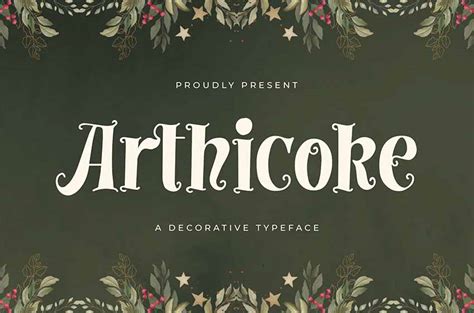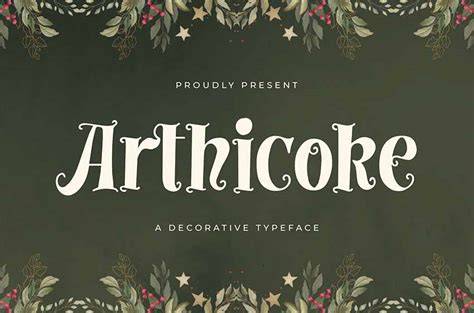
Enhance Your Design with Captivating Decorative Fonts!
Are you looking for a way to enhance your design with captivating decorative fonts? You’ve come to the right place!
Did you know that decorative fonts can bring your design to life? Or that they can add interest and personality to your design?
Statistics show that decorative fonts can help boost the overall success of your design and are a great way to grab attention! So why not give it a try?
In this article, you’ll find tips and advice on how to choose and use decorative fonts to enhance your design. You’ll also discover some of the most popular decorative fonts that you can use to give your design the edge.
Decorative fonts are often used to give a unique and eye-catching look to a design. From a marketing perspective, decorative fonts can help draw the eye of potential customers and give them a memorable experience. They can also help create a sense of emotion and excitement when used in the right context. Decorative fonts can also add visual interest to a design and help break up blocks of text and make it easier to read.
Decorative fonts come in a variety of styles and can be used for a variety of purposes. Some popular types of decorative fonts include script fonts, display fonts, brush fonts, grunge fonts, and graffiti fonts. Script fonts are often used to create a more elegant, hand-drawn look. Display fonts are often used to create a bold, eye-catching look. Brush fonts are often used to create a more organic, hand-painted look. Grunge fonts are often used to give a design a more edgy, urban feel. Graffiti fonts are often used to create a more urban, street-style look.
Decorative fonts should be used sparingly and in the right context. They should only be used when necessary to help draw attention to a design and make it stand out. Decorative fonts should not be used when trying to convey a message as they can be difficult to read and may not be legible. Decorative fonts should also not be used in large blocks of text as they can be too distracting and make the text hard to read.
When choosing decorative fonts, it is important to consider the overall design and the message you are trying to convey. It is also important to consider the font size, as some decorative fonts can be difficult to read at smaller sizes. It is also important to consider the color of the font and the contrast of the font against the background. It is also important to consider the spacing of the letters and the line spacing of the text.
When it comes to pairing decorative fonts, it is important to consider the overall style and tone of the design. Pairing decorative fonts with a more traditional font can help create contrast and make the design more interesting. It is also important to consider the size and weight of the two fonts. Pairing two similar fonts can create a more unified look, while pairing two different fonts can create contrast and visual interest.
Decorative fonts can also be used to create a more cohesive look when used with images. Pairing a decorative font with an image can help create a more unified look and can help draw the eye of the viewer. When using decorative fonts with images, it is important to consider the size and contrast of the font and the image. It is also important to consider the spacing between the font and the image so that the two elements do not compete for attention.
Decorative fonts can also be used to create a more colorful look when used with colors. Pairing a decorative font with a color can help create a more vibrant look and can help draw the eye of the viewer. When using decorative fonts with colors, it is important to consider the contrast of the font and the color. It is also important to consider the spacing between the font and the color so that the two elements do not compete for attention.
Decorative fonts can be a great way to enhance a design and make it stand out. They can be used to create a unique look and draw the eye of potential customers. When using decorative fonts, it is important to consider the overall design and the message you are trying to convey. It is also important to consider the size, weight, and spacing of the font, as well as the contrast of the font against the background. Decorative fonts can also be used to create a more cohesive look when used with images and colors.
Using decorative fonts can be a great way to add a personal touch to your design and make it stand out. Decorative fonts are available in a variety of styles, so you can find the perfect font that fits your design needs. With the right decorative font, you can enhance your design and create something truly captivating and unique. Thank you for reading, and we hope you have a great day!